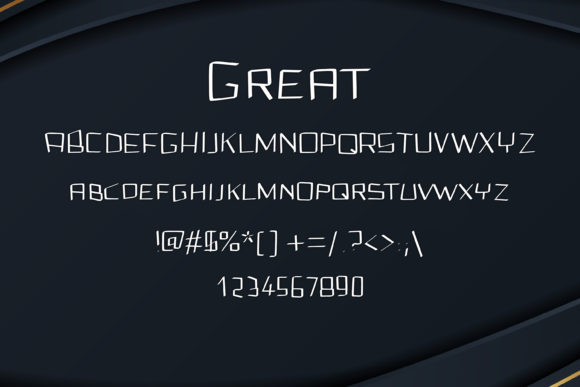
Introducing Great Font: The Cute and Original Display Font for Futuristic Designs
Are you tired of using the same old fonts for your designs? Look no further! Great Font is a unique and adorable display font that can add a touch of asymmetry and futurism to your projects. With its distinctive shape and playful vibe, Great Font is perfect for designers and crafters who want to make their work stand out.
The Features of Great Font
Great Font is a display font that boasts a range of features that make it perfect for futuristic designs. Here are some of its key characteristics:
- Asymmetrical shape: Great Font has an intentionally irregular shape that gives it a playful and dynamic feel. This asymmetry makes it perfect for designs that require a bit of edge and personality.
- Cute and original: Great Font is a one-of-a-kind font that is sure to grab attention. Its unique design makes it perfect for projects that require a touch of whimsy and fun.
- Display font: Great Font is designed specifically for display purposes, making it perfect for headlines, titles, and other prominent text elements.
How to Use Great Font in Your Designs
Great Font is incredibly versatile and can be used in a wide range of design projects. Here are some ideas to get you started:
- Futuristic posters: Add Great Font to your futuristic posters to give them a bold and eye-catching title.
- Logo design: Use Great Font as a starting point for your logo design to create a unique and memorable brand identity.
- Social media graphics: Great Font is perfect for social media graphics, such as Facebook posts, Twitter headers, and Instagram stories.
- Web design: Use Great Font to add a touch of personality to your website’s headlines and titles.
Tips for Pairing Great Font with Other Fonts
When pairing Great Font with other fonts, it’s essential to balance its playful and asymmetrical shape with more traditional fonts. Here are some tips to help you create harmonious font combinations:
- Pair with a sans-serif font: Pair Great Font with a clean and simple sans-serif font, such as Arial or Helvetica, to create a balanced look.
- Use a script font: Combine Great Font with a script font, such as Pacifico or Great Vibes, to add a touch of elegance and sophistication.
- Experiment with font sizes: Play around with different font sizes to create visual interest and hierarchy in your design.
Why Designers and Crafters Love Great Font
Great Font has quickly become a favorite among designers and crafters due to its unique features and versatility. Here are some reasons why:
- Easy to read: Despite its asymmetrical shape, Great Font is surprisingly easy to read, making it perfect for designs that require a bit of flair.
- Customizable: Great Font can be customized to fit your design needs, allowing you to adjust its size, color, and style to suit your project.
- Unique and original: Great Font is a one-of-a-kind font that will set your designs apart from the crowd.
Great Font is a cute and original display font that can add a touch of futurism and asymmetry to your designs. With its unique features, versatility, and ease of use, Great Font is perfect for designers and crafters who want to create bold and eye-catching projects. Try Great Font today and see how it can bring your designs to life!